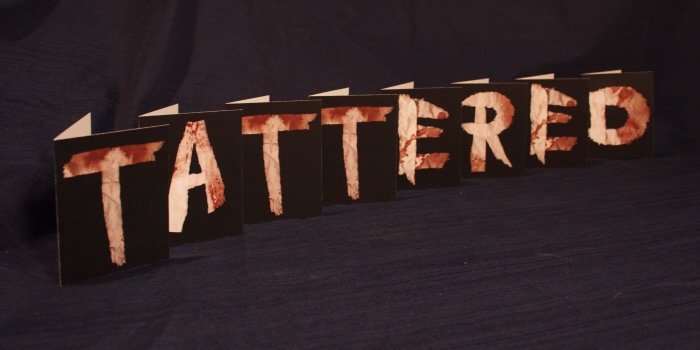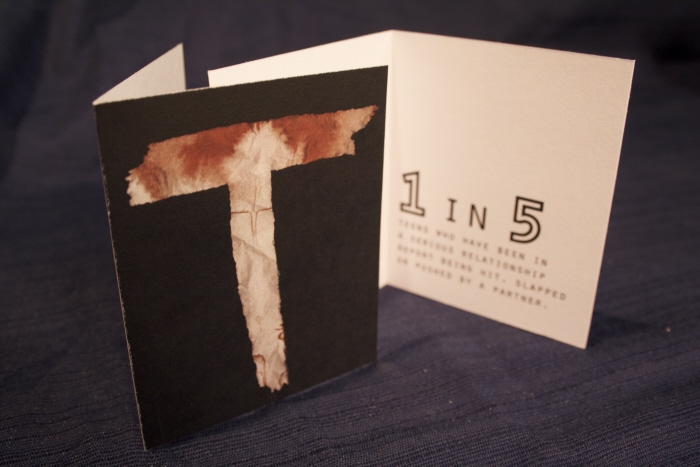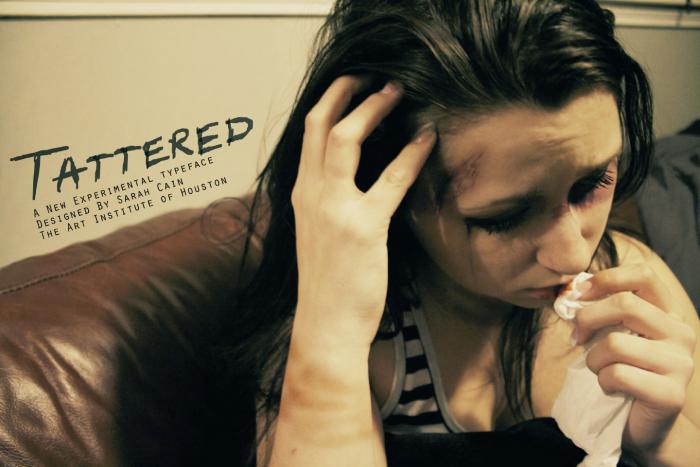
Typeface - Typeface that I created from tissue paper & stains that look like blood.
Poster created for Tattered
Cards
Cards that contained information of domestic abuse and how to seek help.